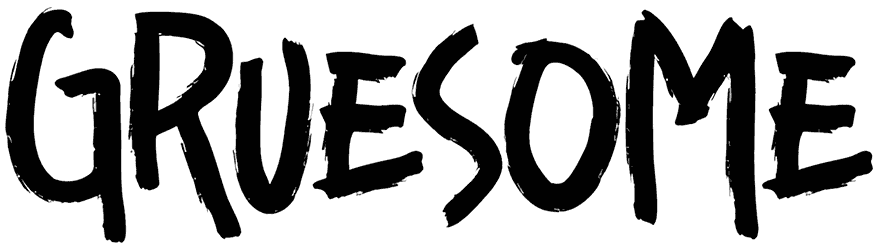
Gruesome Font
If you are in the middle of a critical project and there is no room for making any mistakes, then a magical Halloween font such as Gruesome can be your superior game-changer and survivor.
This all-caps font comes with crooked characters and carries a sense of grunge, disorder, jauntiness, or vivacity. We strongly recommend you include this font in your street posters, digital banners, web page templates, social media posts, and stickers.